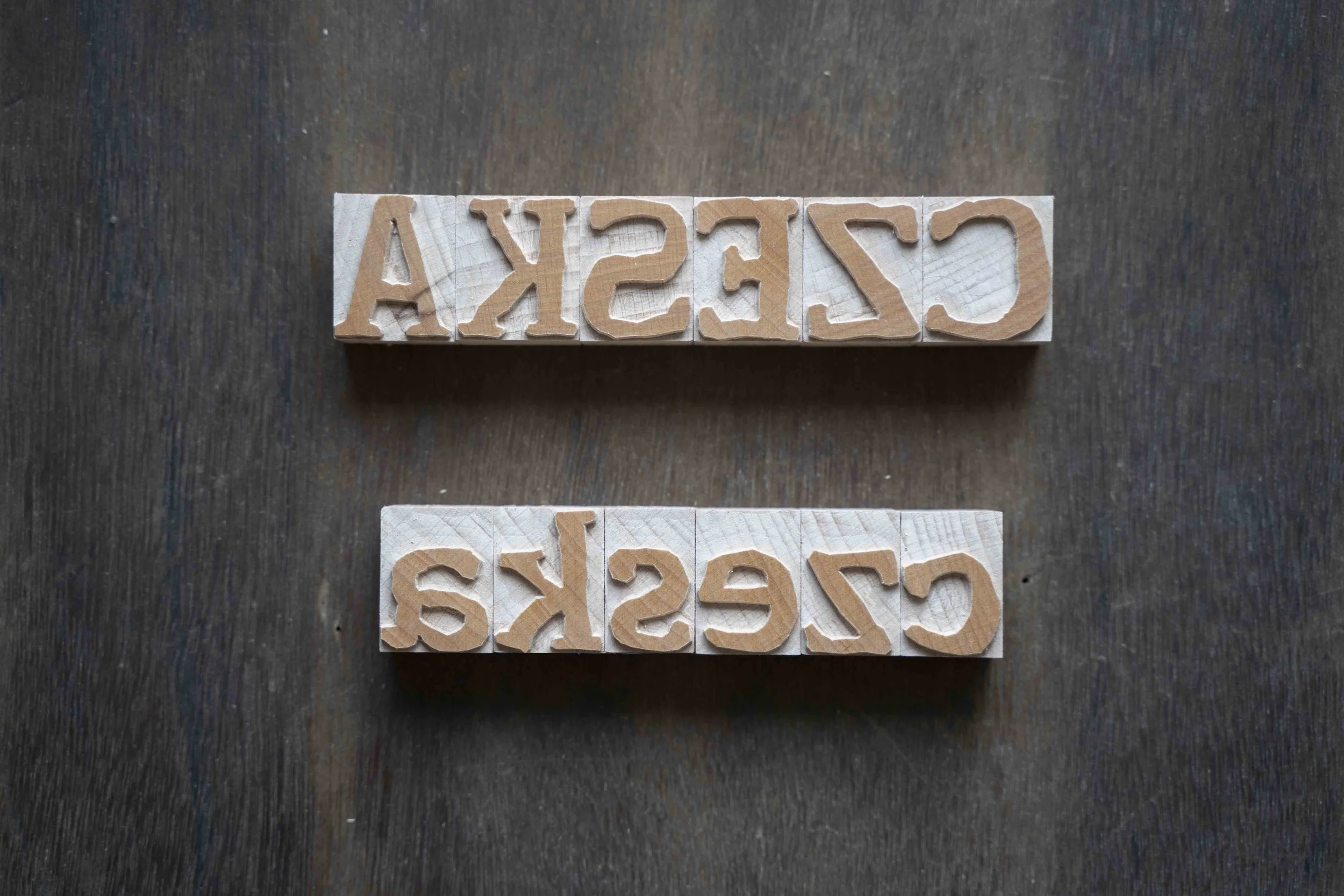
Caslon Rounded
Introducing Caslon Rounded in collaboration with Commercial Type! This forgotten typeface found in the Specimen of Printing Types by Henry Caslon, 1842 was recently digitised by Commercial Type and is now available in wood type.
In Commercial Type’s own words -
”Rounding the terminals of letters has long fascinated designers—the first rounded typeface was cut by the Caslon & Catherwood foundry in 1836. The rounded terminals give it a warm and friendly appearance and, with a well considered lowercase, it is a design from the past remade for today. A headline face with matching italic, inline, and ornamented variants, it is a design of real character.”
Printed samples by Andrew Long for use at St Brides’ Wayzgoose.